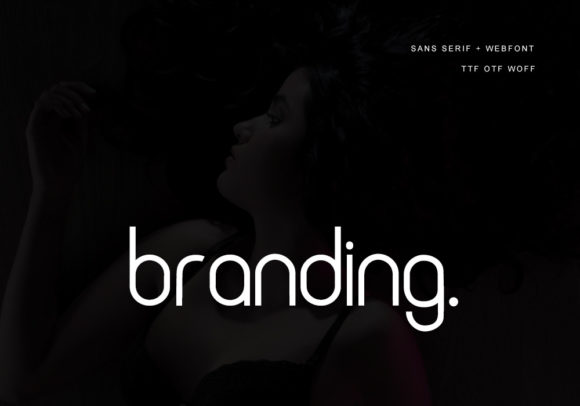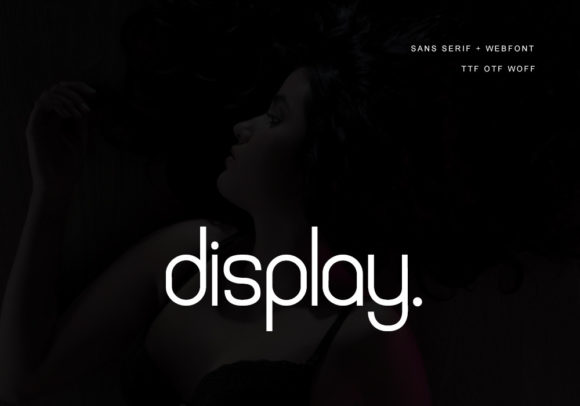
Introduction to Cenobio Font
As a designer, there’s nothing quite like the thrill of discovering a new font that sparks inspiration for a creative project. It’s the moment when the perfect combination of style and functionality comes together, elevating your design to the next level. For many, this moment is exactly what happens when they lay eyes on the Cenobio Font.
Cenobio Font is a masterclass in simplicity, offering a clean and minimalistic aesthetic that adapts seamlessly to a wide range of design applications. Whether you’re crafting a stunning web design, designing a business card, or simply looking for a unique touch to elevate your brand, Cenobio Font is an invaluable resource. And the best part? It’s available for free download, making it an accessible design resource for creatives of all levels.
Key Features of Cenobio Font
- Unique Design: Cenobio Font offers a distinctive, modern aesthetic perfect for creative projects requiring a high-quality design resource.
- Transparent Background: The font features a transparent background, allowing for seamless integration with various design elements and backgrounds.
- Perfect for Creative Projects: The font’s unique design and high-quality files make it an ideal choice for designers working on creative projects, such as branding, advertising, and graphic design.
- Large Character Set: Cenobio Font includes a large character set, including uppercase and lowercase letters, numbers, and special characters, making it a versatile design resource.
Honest Review: Cenobio Font
I recently stumbled upon the Cenobio Font, and I must say it’s a fantastic addition to any designer’s toolkit. The font is available for free download, which is always a bonus when working on a creative project. Its high quality design makes it perfect for various applications, from digital to print media.
What works well with the Cenobio Font is its versatility. It’s a great choice for titles, headings, and even body text. Its clean and modern design makes it easy to read, even on a transparent background, which is a great feature for designers who need to work with complex layouts.
- ✨ High-quality design that’s perfect for various applications.
- ✨ Versatile font that’s great for titles, headings, and body text.
However, there are a few limitations to consider. The font is only available in a few weights, which might limit its usage in certain creative projects. Additionally, the font’s design, while modern, might not be suitable for all types of projects, such as traditional or vintage-inspired designs.
Overall, the Cenobio Font is a solid design resource that’s definitely worth checking out. Its high quality and versatility make it a great addition to any designer’s toolkit.
Experiment with different font sizes and styles to create a visually appealing design. Use the font in conjunction with other design elements to create a cohesive look. Don’t be afraid to try out new and creative uses for the font.
Common Use Cases for Cenobio Font
Cenobio Font is ideal for creative projects that require a high-quality, transparent background. Some common use cases include: